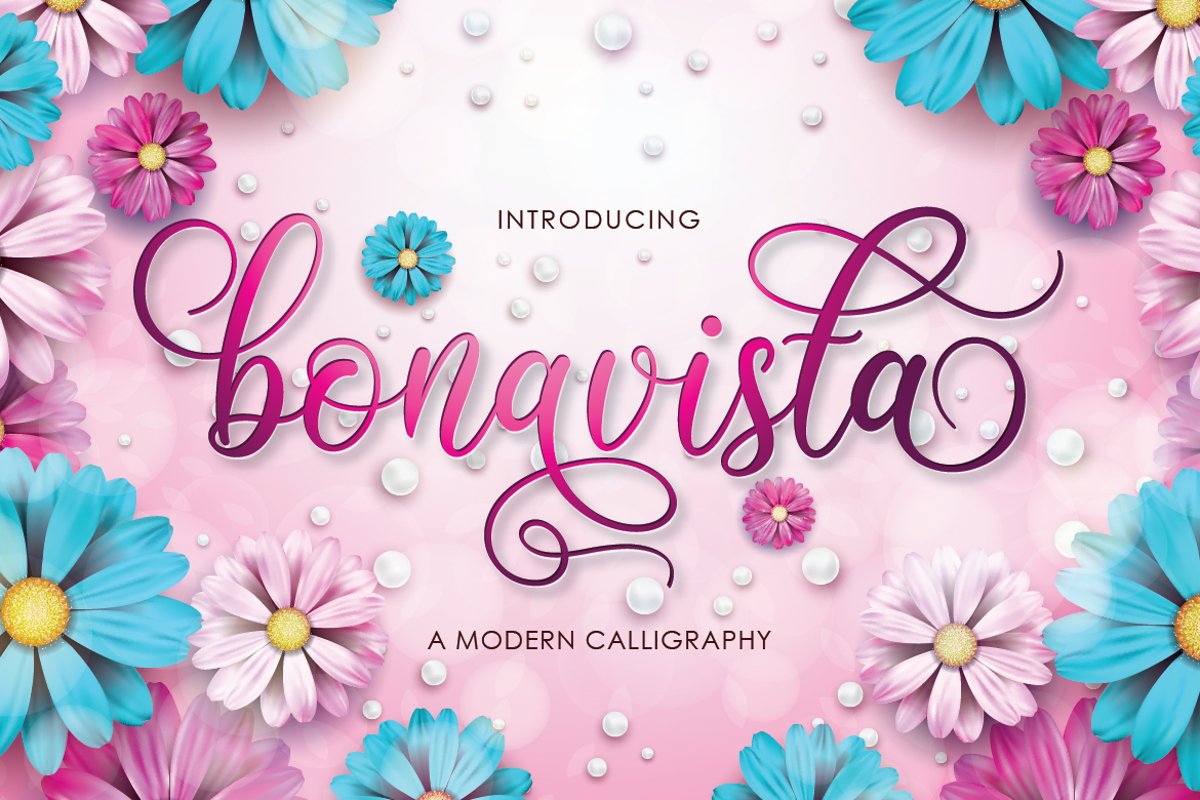
Bonavista|Beauty script
Bonavista is a beautiful script font with many alternative styles, this font looks natural, elegant and perfect for any extraordinary project.Bonavista is suitable for various products such as invitations, product packaging, quotes, product design, crafter, labels, photography, watermarks, logos & branding.Everything can be accessed using software that supports Opentype, such as Adobe Indesign, Adobe CS Illustrator, Adobe Photoshop CC, and Corel Draw.